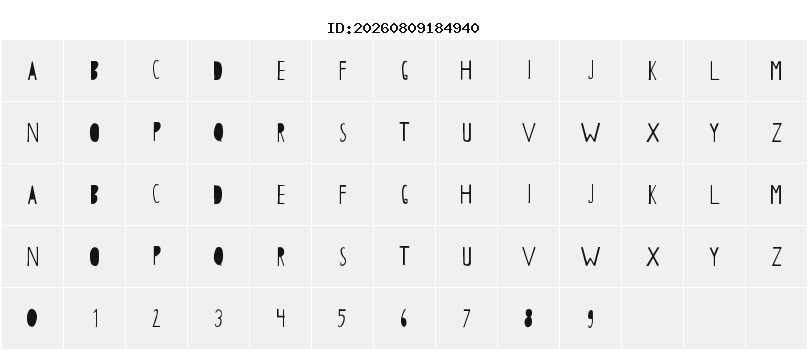
• Font Name: Papercutting
• Designer: Ahsan
About Papercutting.ttf
Papercutting.ttf is a modern, elegant sans-serif font designed for ultimate readability and visual harmony. Perfect for branding, headlines, web design, and print materials.